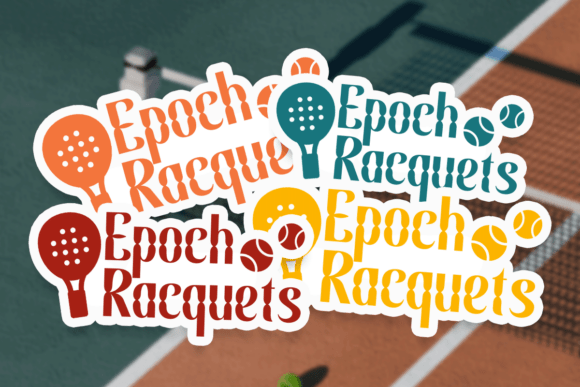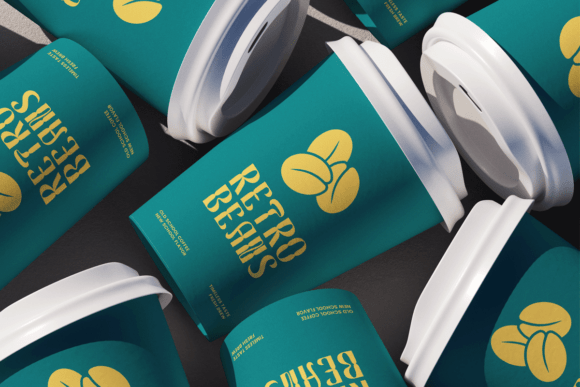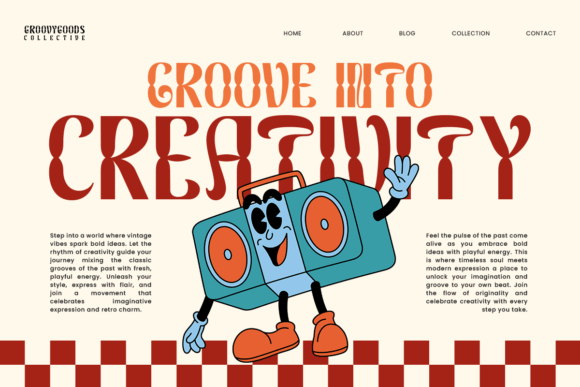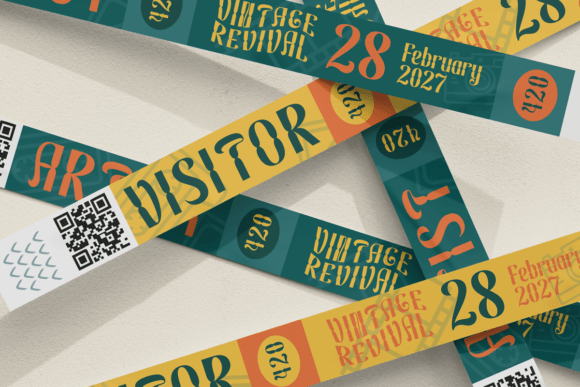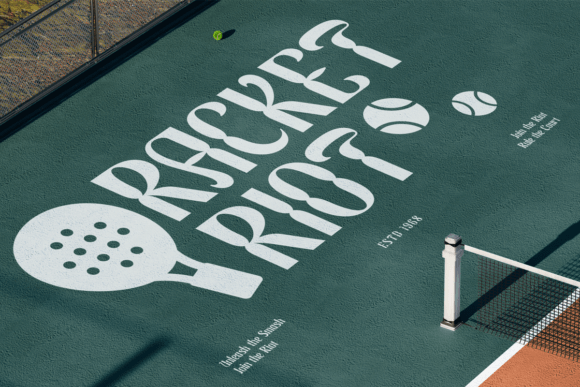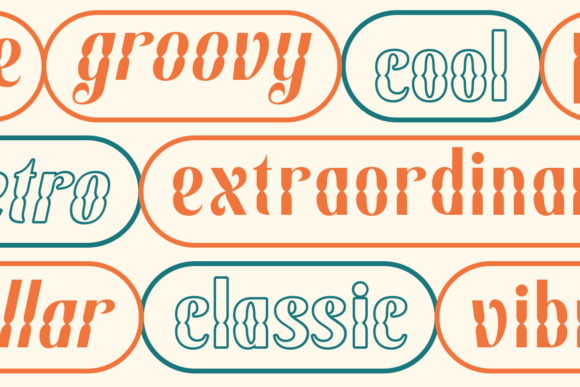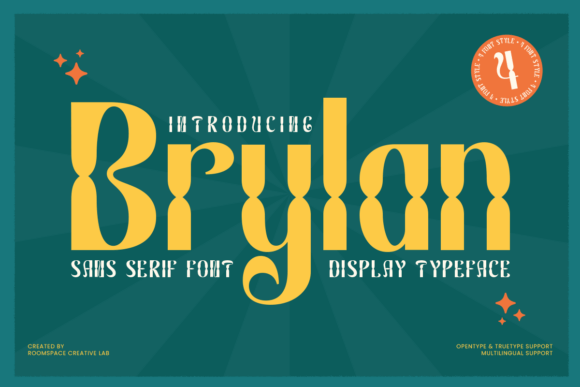
Unleashing the Drama: A Deep Dive into Brylan Font
I’ll never forget the design project that led me to discover Brylan Font. I was working on a luxury brand campaign, tasked with creating an eye-catching poster that exuded opulence and sophistication. As I scrolled through font libraries, I stumbled upon Brylan – a unique display typeface that instantly caught my attention. Its art deco glamour, combined with a modern, high-contrast aesthetic, seemed tailor-made for the project. I was hooked!
• 💥 Maximum Impact: Brylan’s bold, dramatic statement is perfect for making a lasting impression.
• 🎨 Versatility: This font seamlessly blends luxury, history, and modernity, making it suitable for various design applications.
• 🔍 Highly Customizable: With its PUA (Private Use Area) encoding, you can easily access and swap out glyphs to create unique variations.
Small Quirks and Limitations ⚠️
• 🤔 Single Style: Brylan offers only one style, which might limit its use in projects requiring font variations.
• ⚠️ Glyph Overload: With so many decorative cuts and flourishes, it can be overwhelming to navigate the glyph panel – but trust me, it’s worth the exploration!
The Story Behind Brylan: Designer Inspiration
Brylan’s design story begins with a passion for art deco and the Roaring Twenties. The font’s creator drew inspiration from iconic designs of the era, merging classic elegance with modern sensibilities. The result is a truly unique typeface that embodies luxury, drama, and sophistication.
Q: What is the best use case for Brylan Font?
A: Brylan excels in luxury goods and lifestyle branding, art deco-themed events and invitations, high-end club and restaurant signage, movie title sequences, and magazine editorials.
Q: Is Brylan suitable for body text?
A: While Brylan is a stunning display font, it’s not ideal for body text due to its high-contrast aesthetic and decorative cuts. Instead, use it for headlines, titles, or promotional materials.